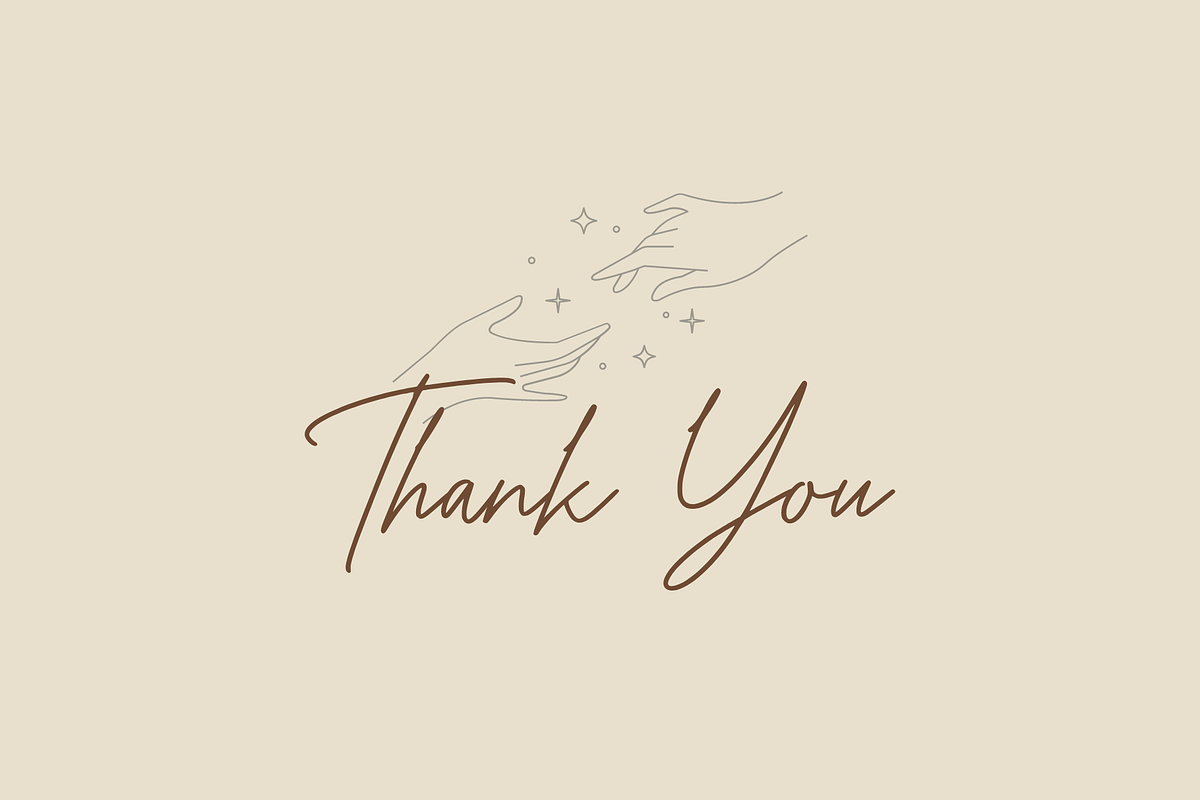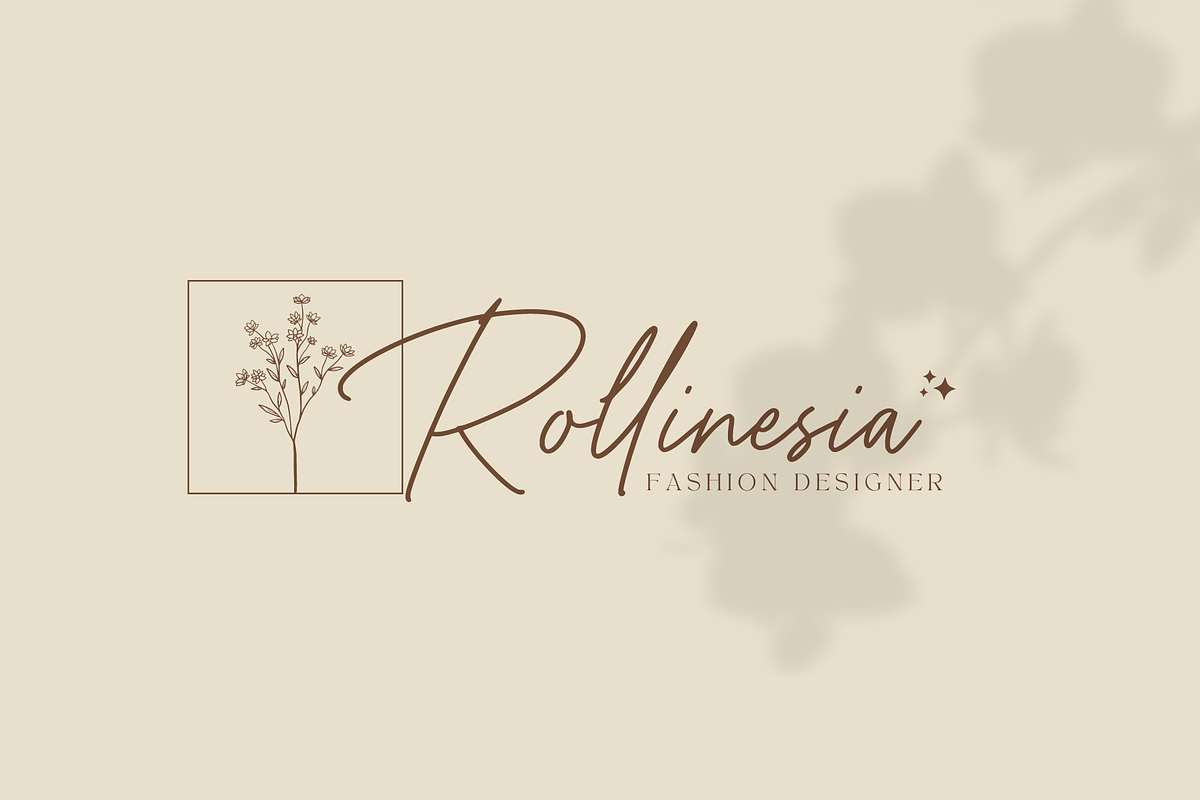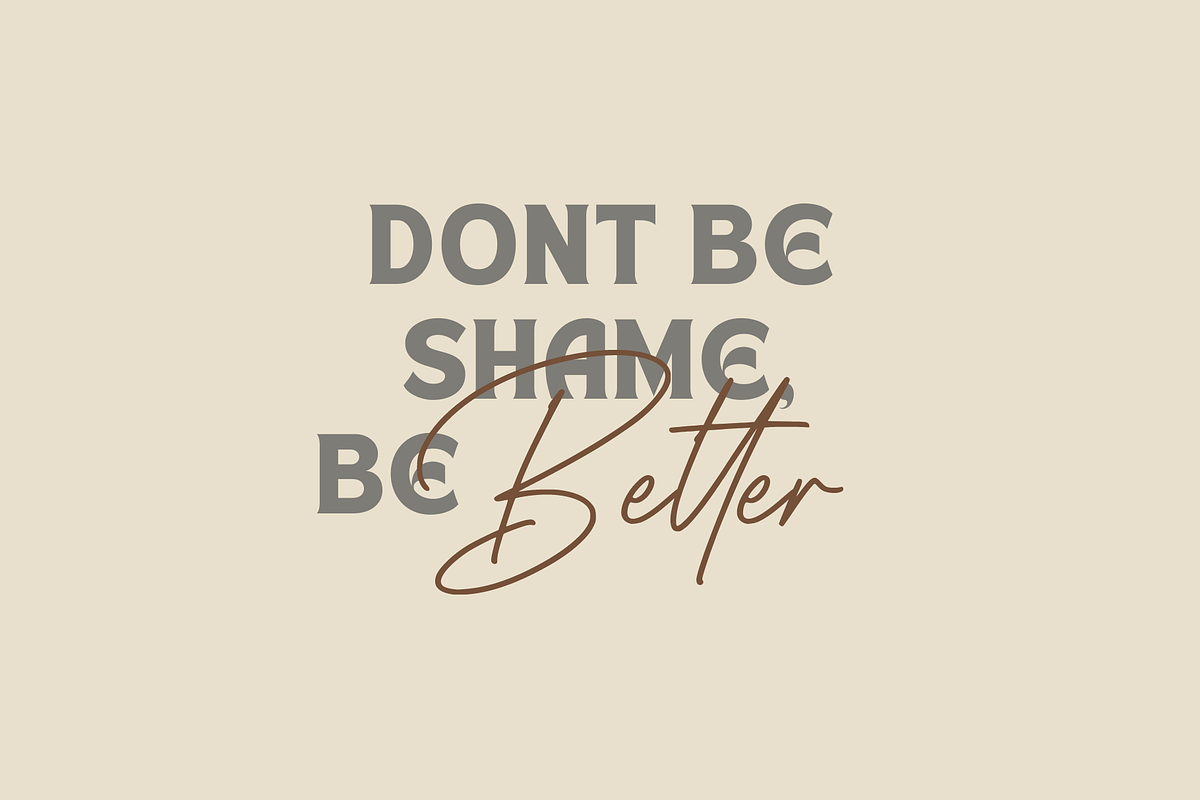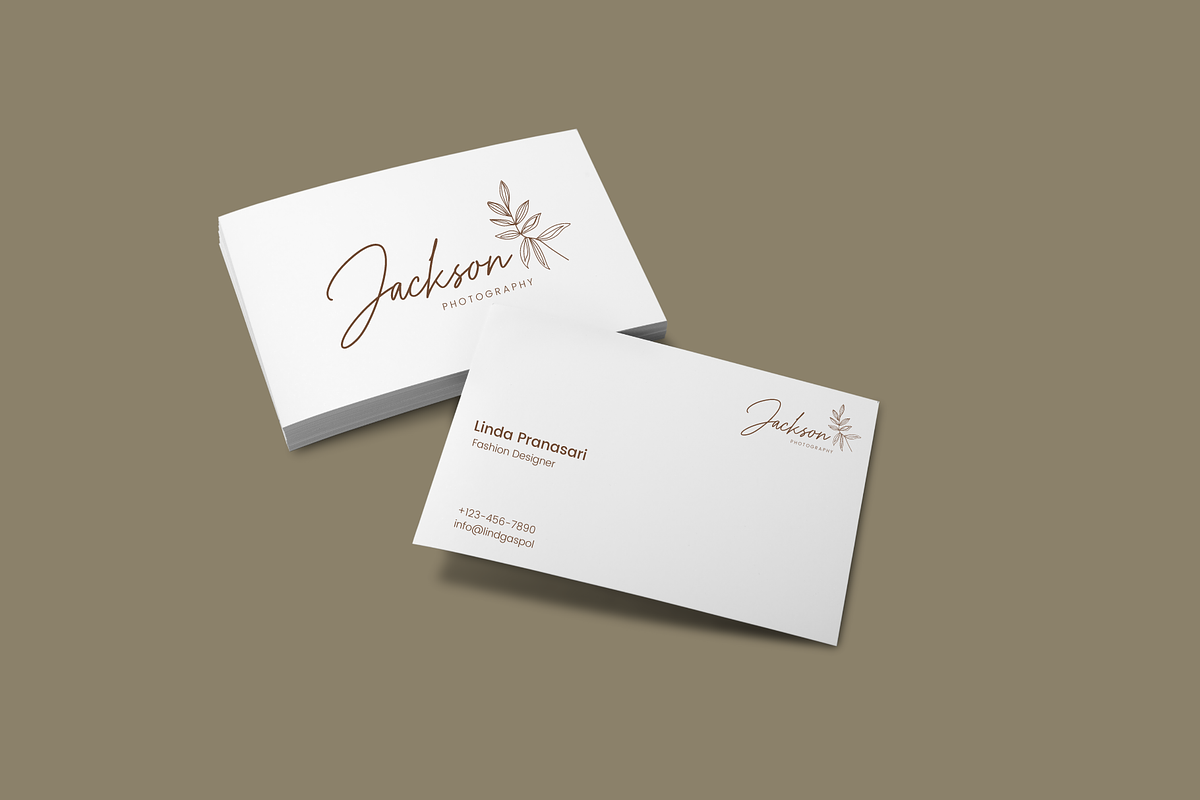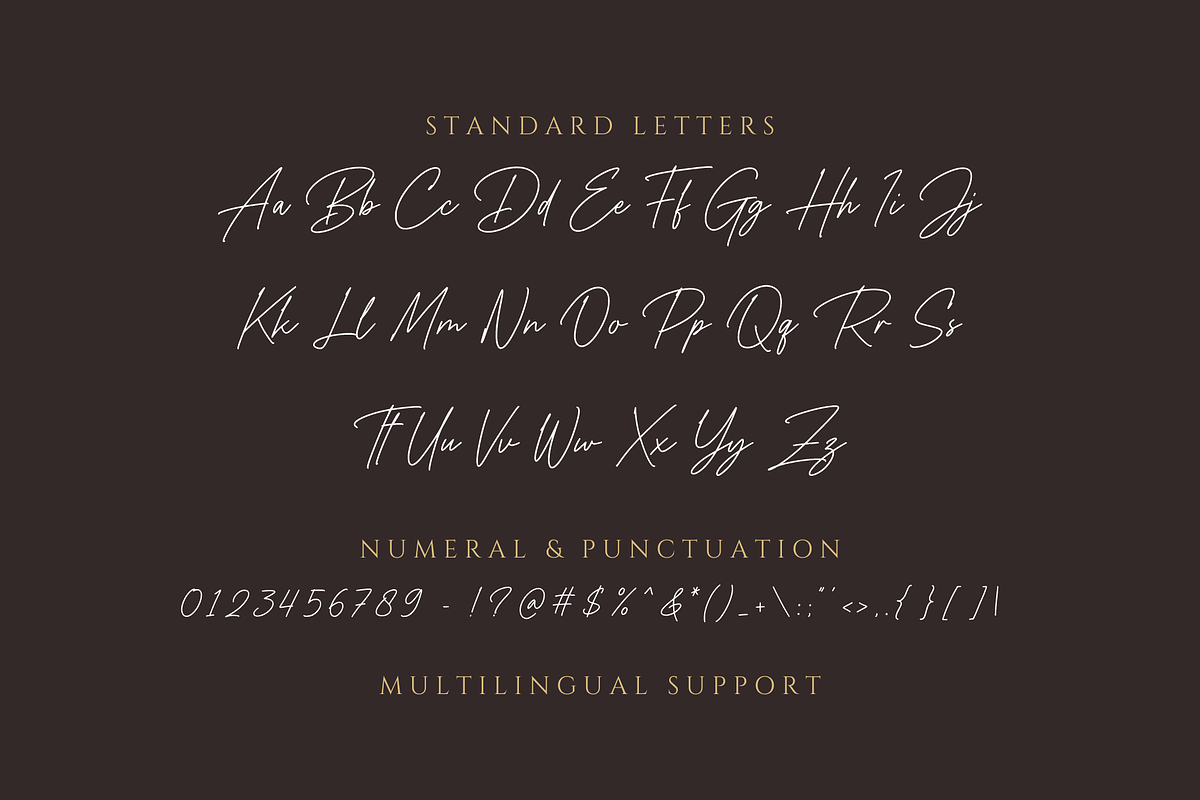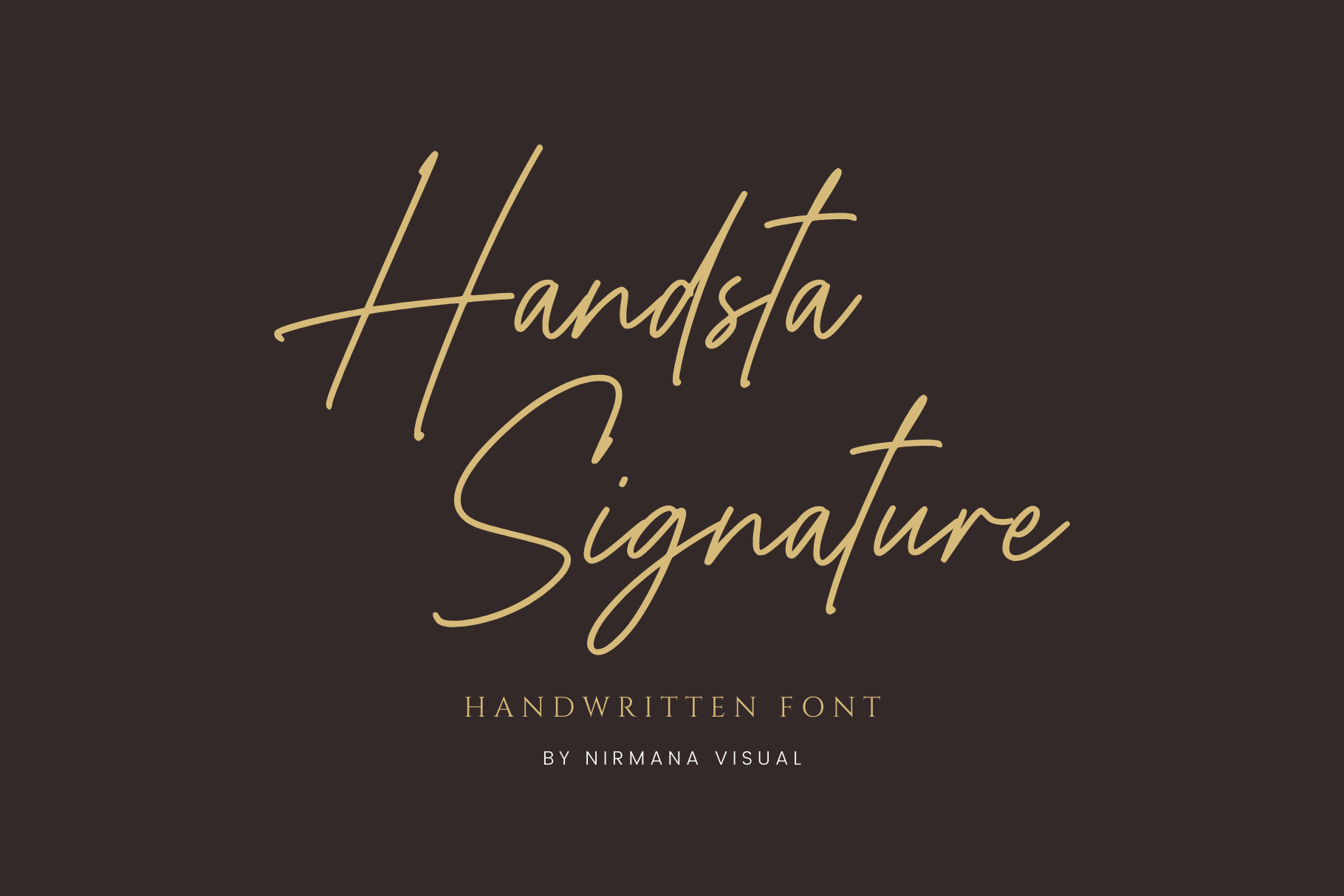
handsta signature - handwritten font
Handsta Signature is a Beautiful script font carefully created with a touch of romantic, This is a beautiful combination of timeless elegance and authentic Handwritten Signature style.
suitable for branding, signature, wedding invitation, promotion, product packaging, and other needs. This font is modern, simple, but still authentic.